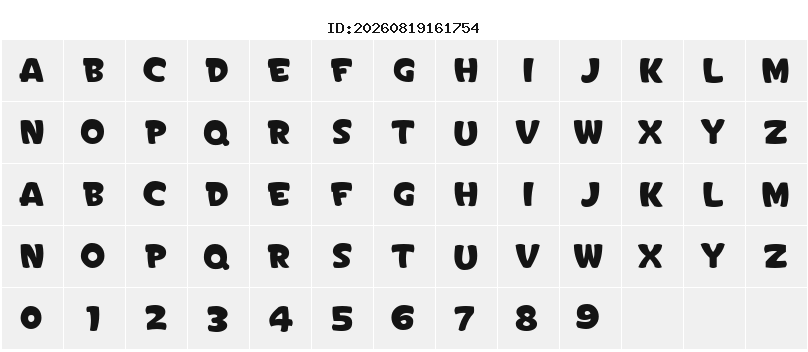
Sign Painters Gothic No. 2 JL Preview
• Font Name: Sign Painters Gothic No. 2 JL
• Full Font Name: Sign Painters Gothic No. 2 JL
About Sign Painters Gothic No. 2 JL.ttf
Sign Painters Gothic No. 2 JL.ttf is a modern, elegant sans-serif font designed for ultimate readability and visual harmony. Perfect for branding, headlines, web design, and print materials.